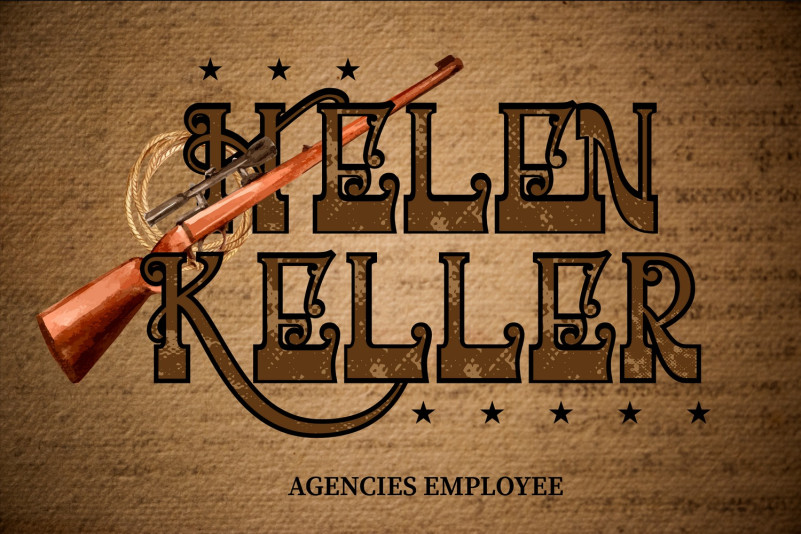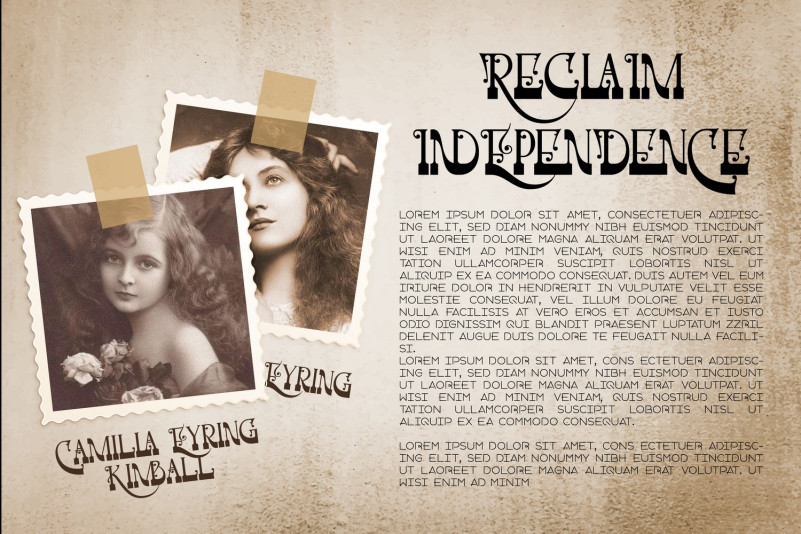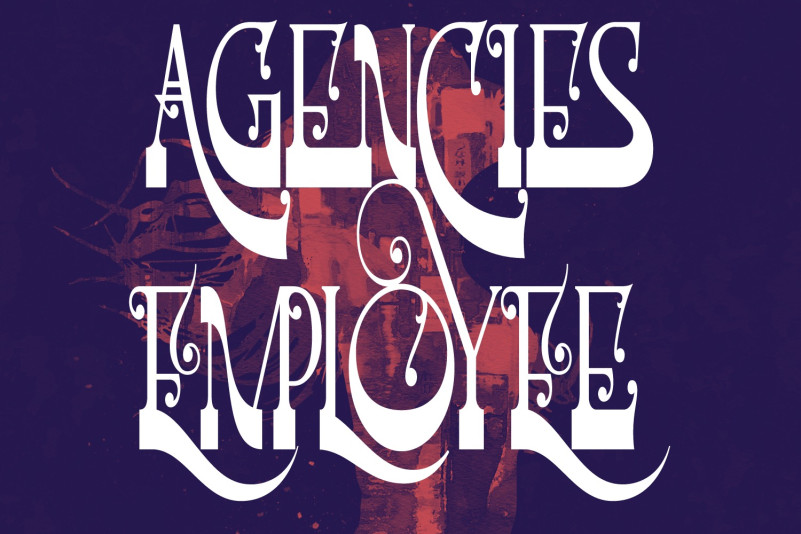
Agencies Employee Font
Agencies Employee Display Font is a vintage font with a Victorian era style, adapted for classic or retro design needs, such as garage or motorcycle related badge designs. Well suited for the design of Victorian style headlines & book covers, quotes, labels for tobacco, whiskey, rum, tequila, confectionery. Great for designing t-shirts, posters, playing cards, etc.
To make it look more unique, here we prepared some ligatures:
ab ac ad ag ap ar as bc bg bo bq ca cm cn cs cv cw cz da dc dg dm dn do dq dv dw ea em en es et ev ew ez fm fn ft fv fw ga hb hd he hf hh hk hp hr hu tk th tf te td tb st sv sw rc rg ro rq rs qq qo qg qc oq oo og oc ns nn nm nk nh ne nd nb mr mp ml mk mh mf me md mb lu ls lq lo lg lc la ka ks kx jf jh jk jp jr vb vd ve vl vp vr wb wd we wl wp wr